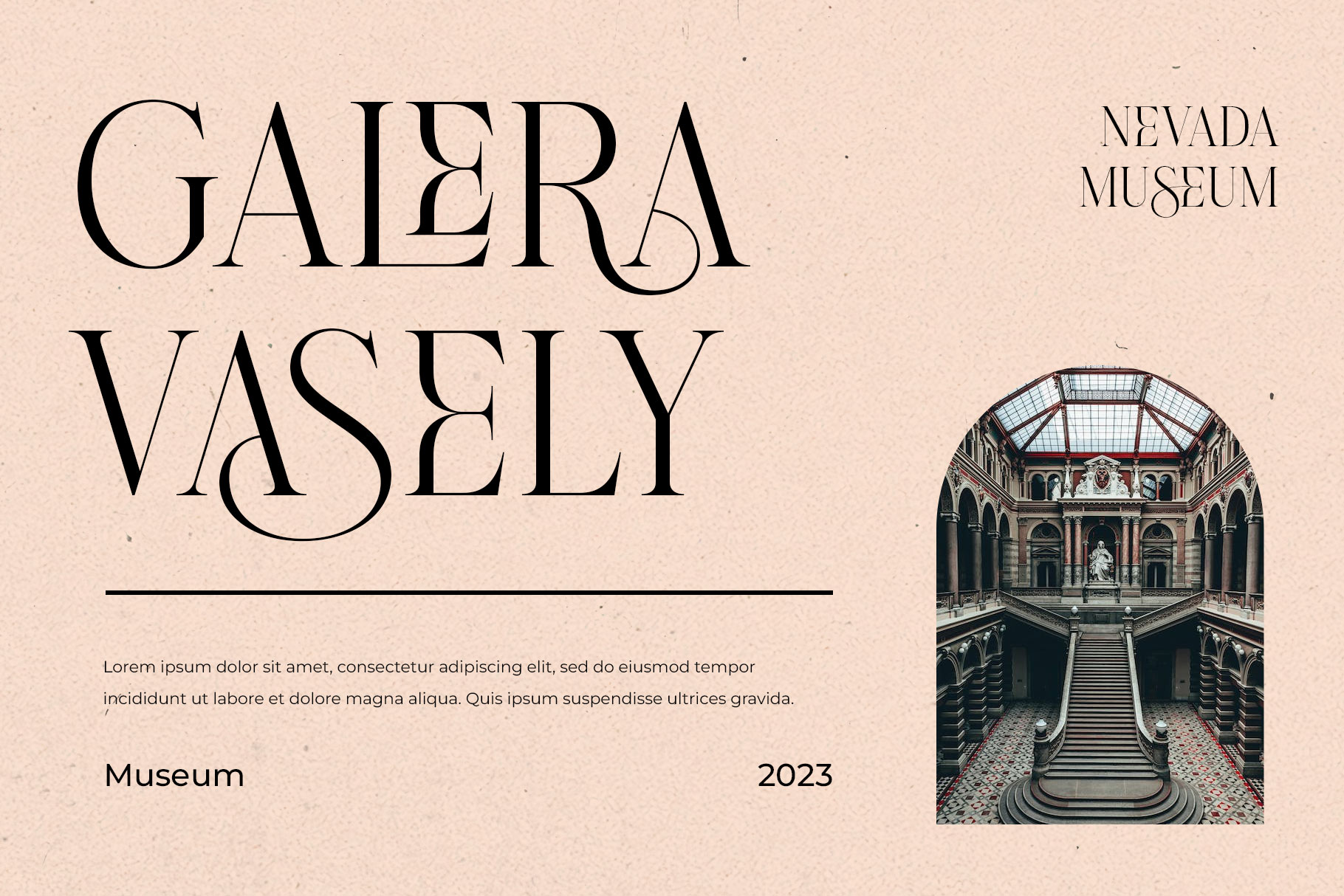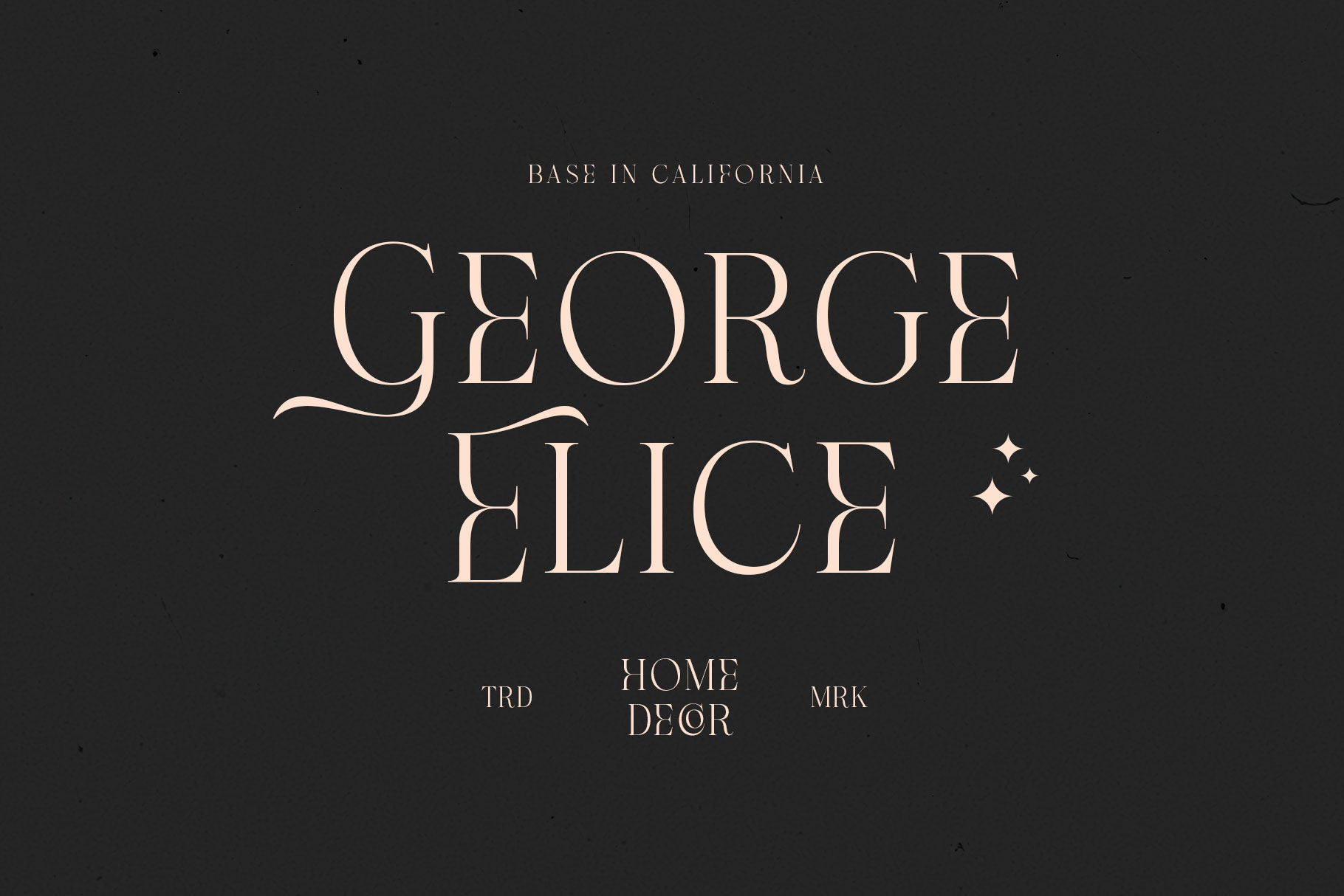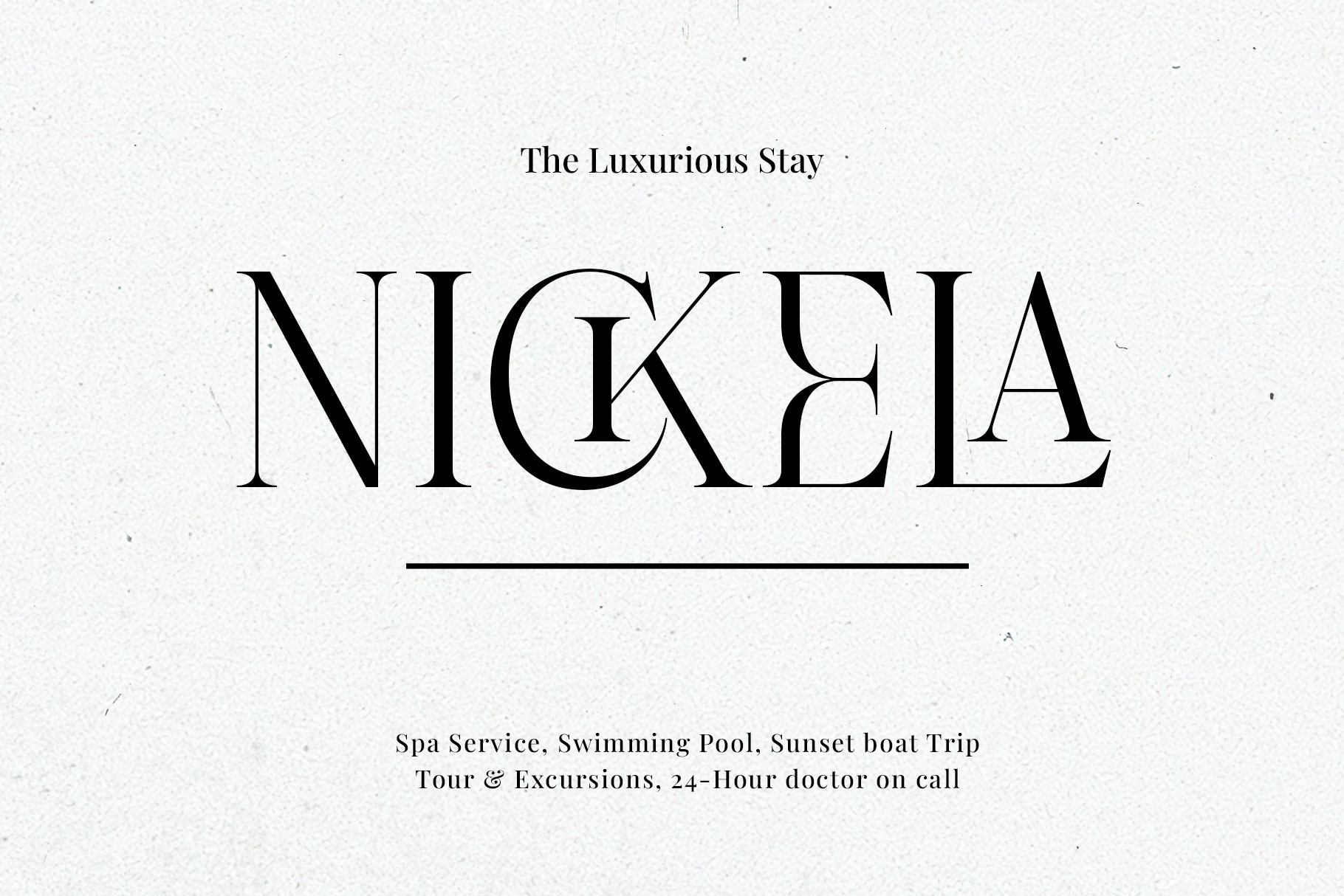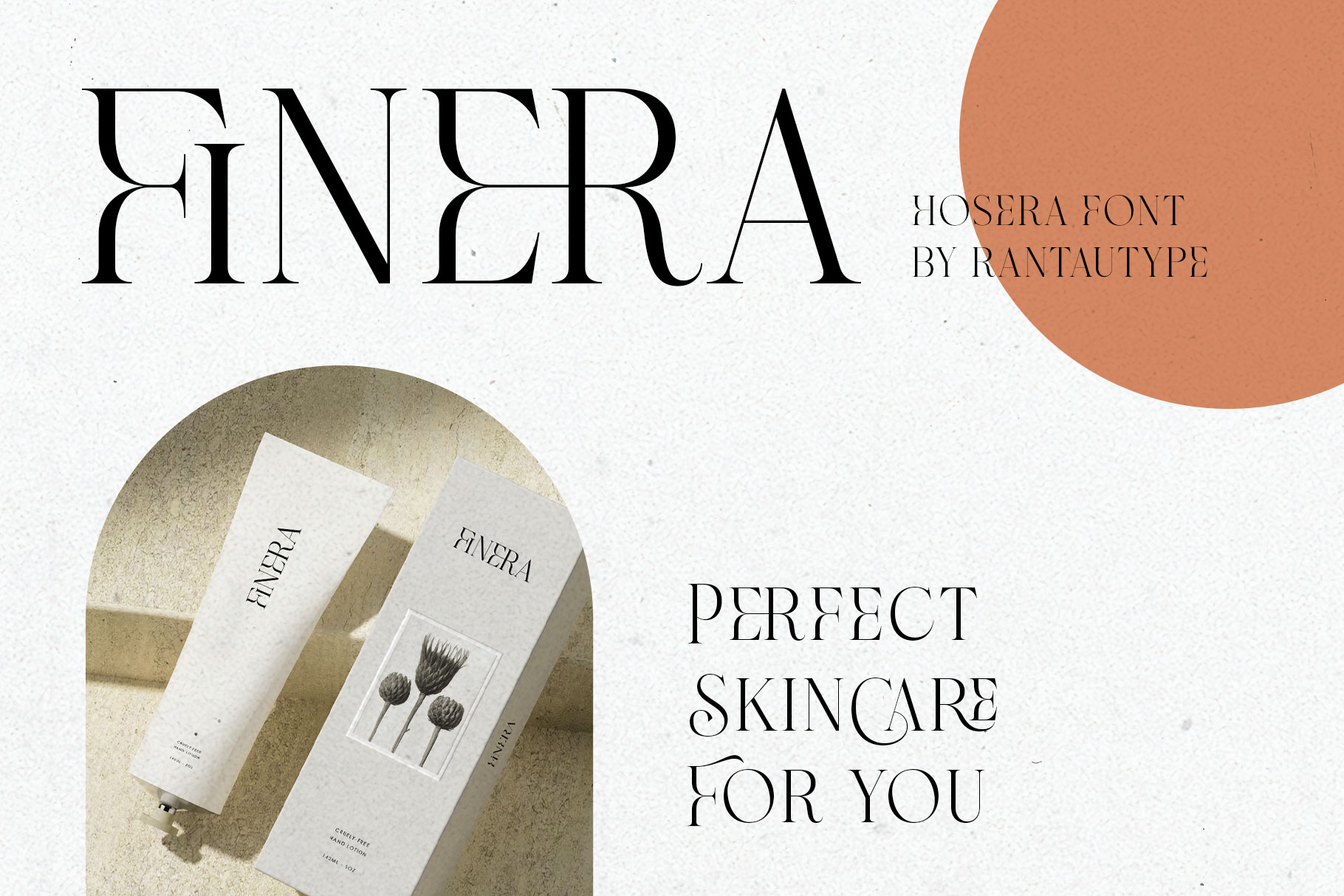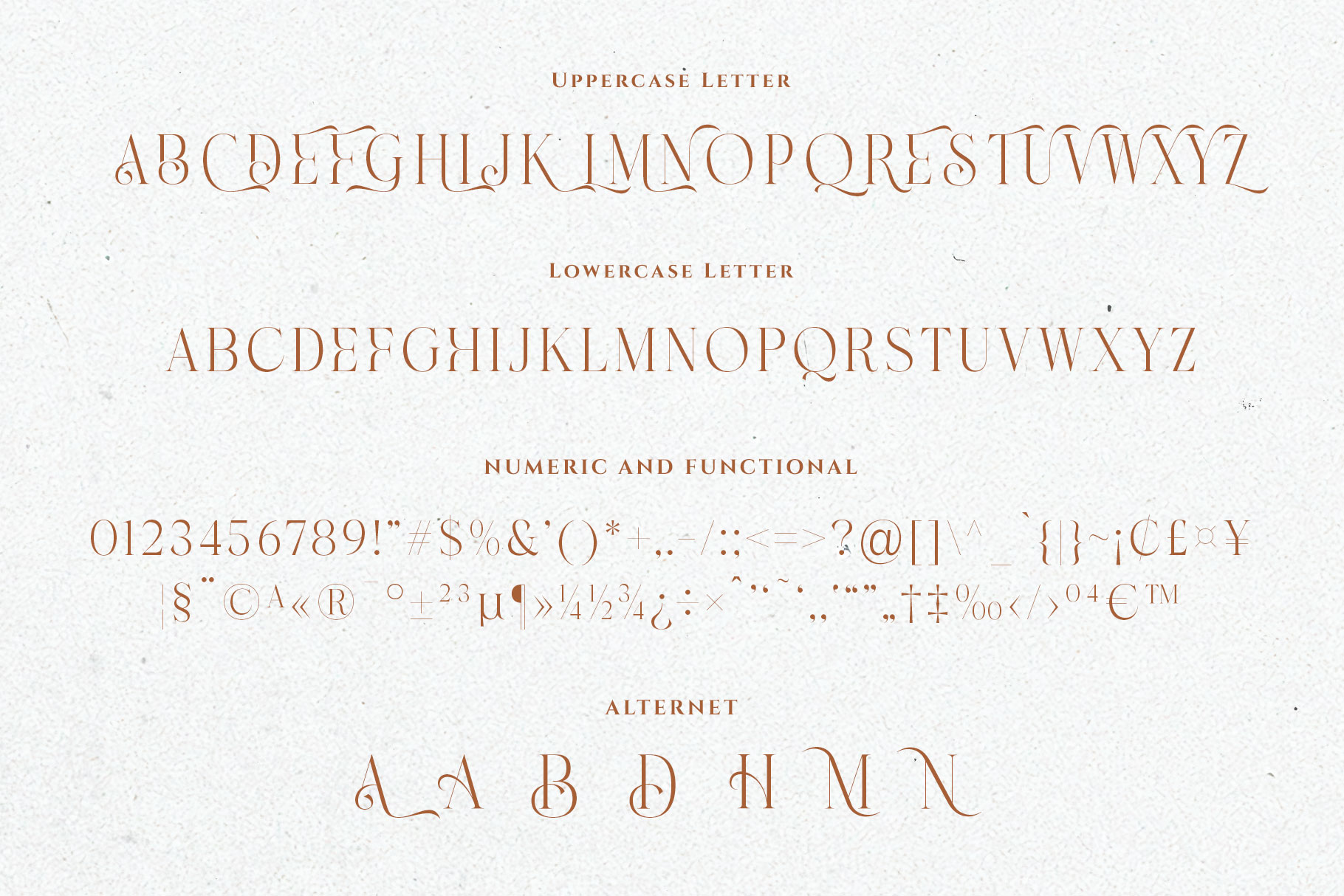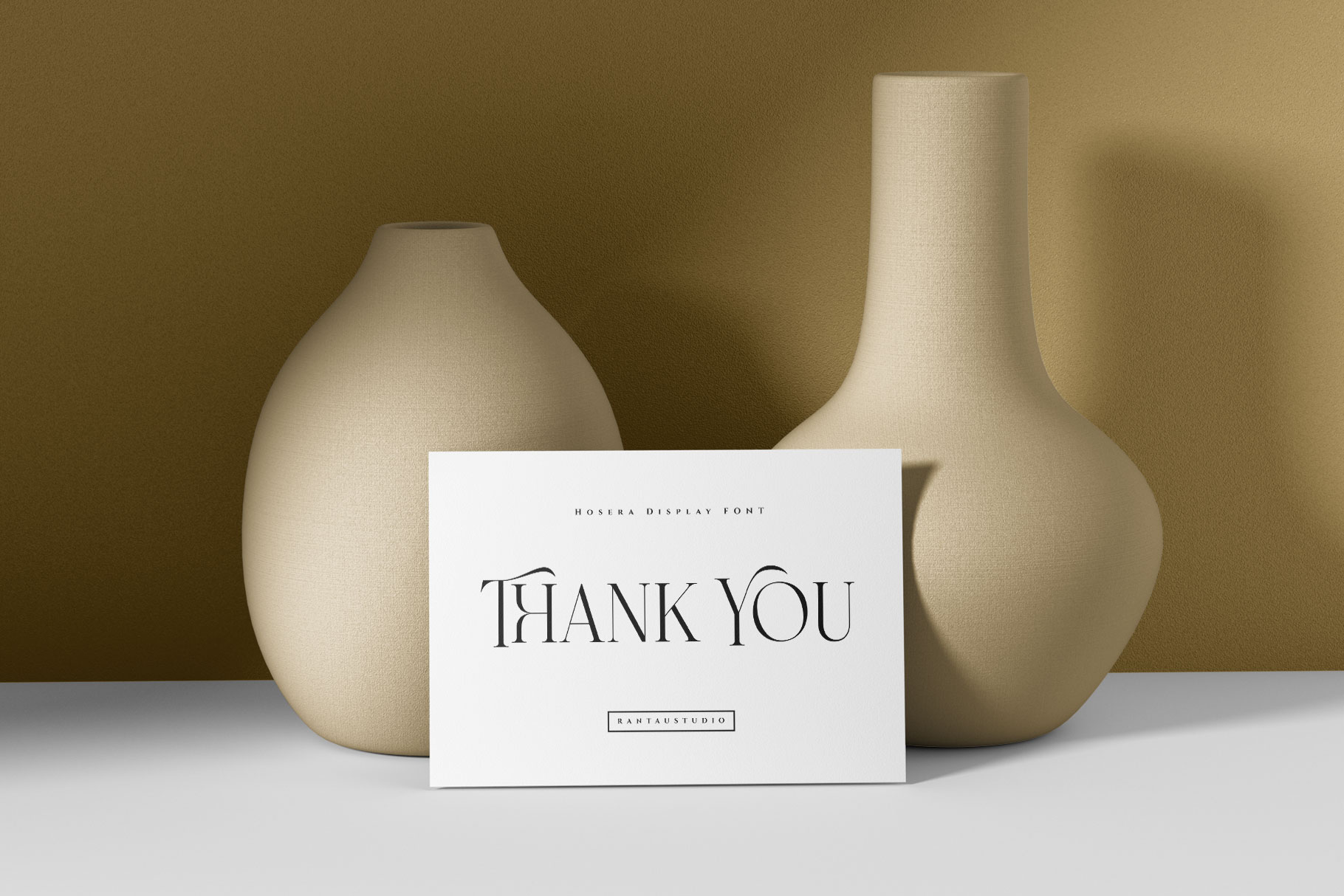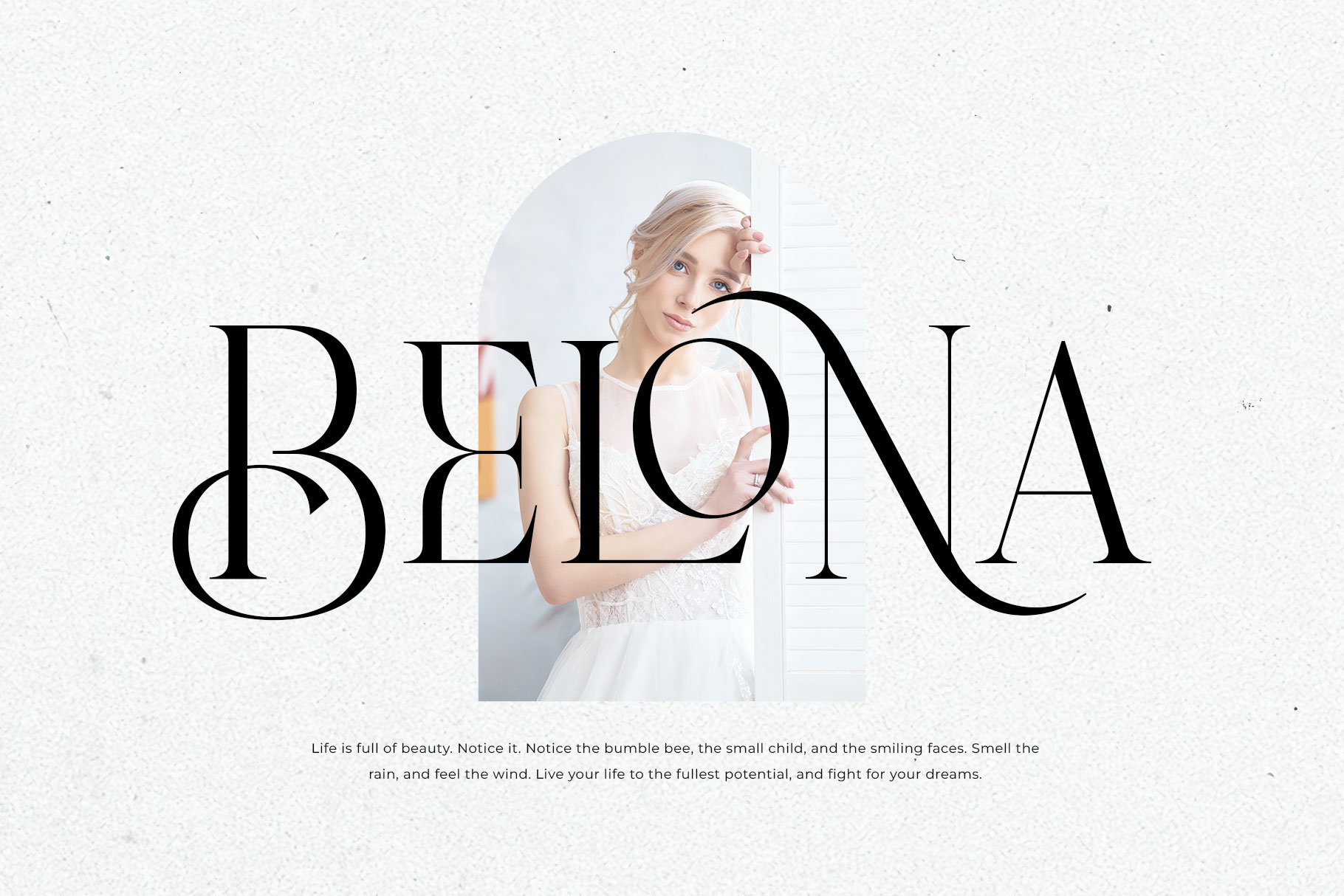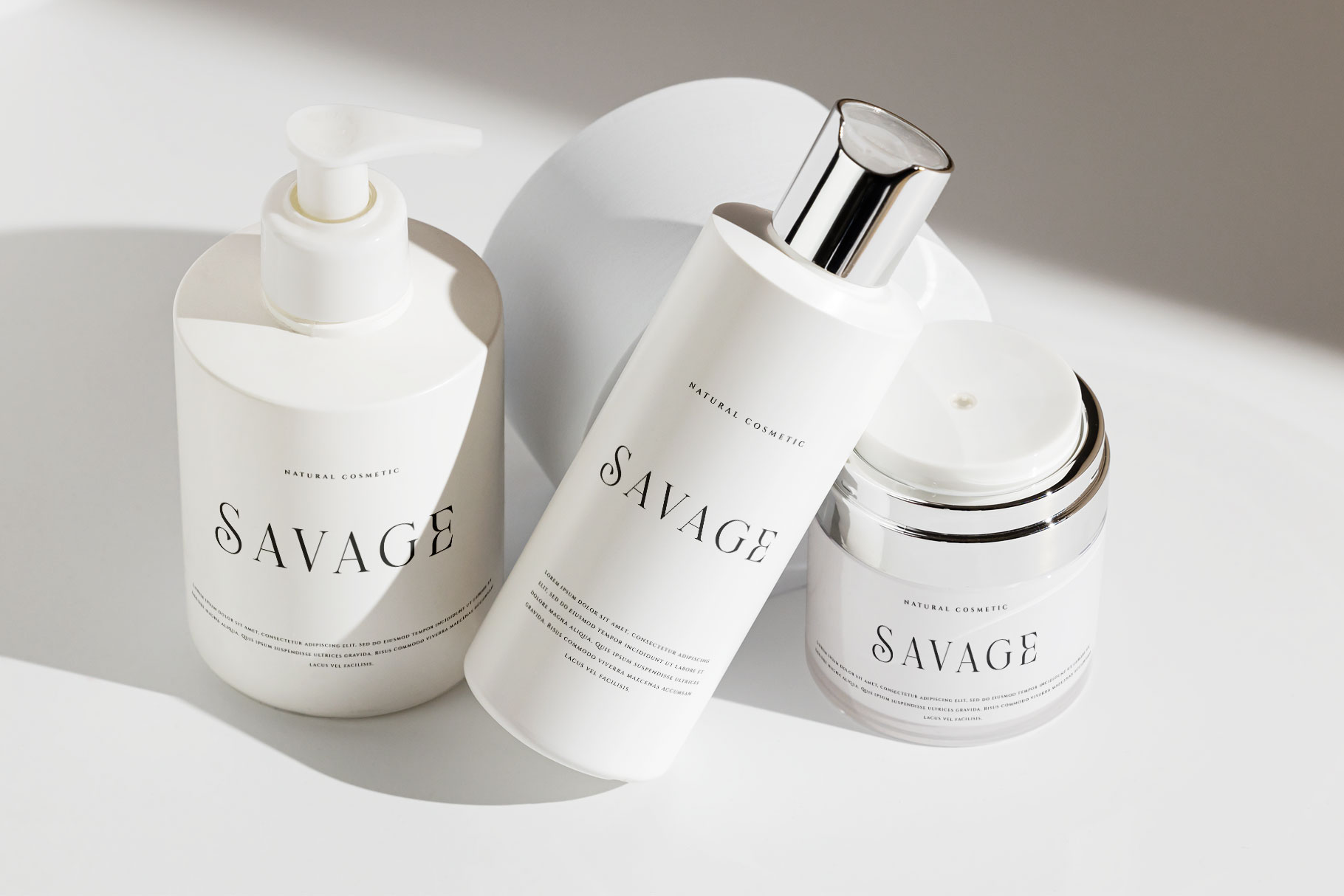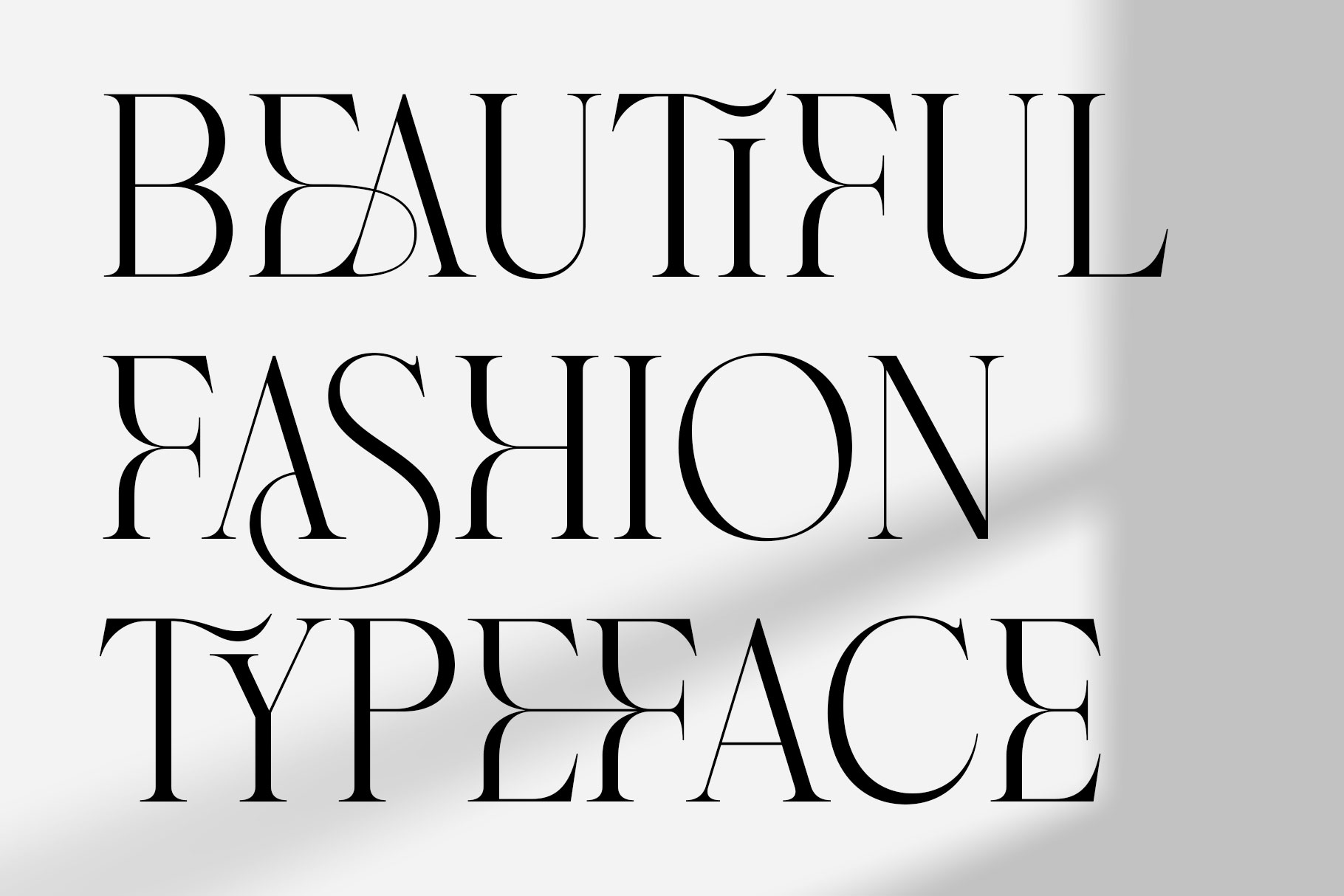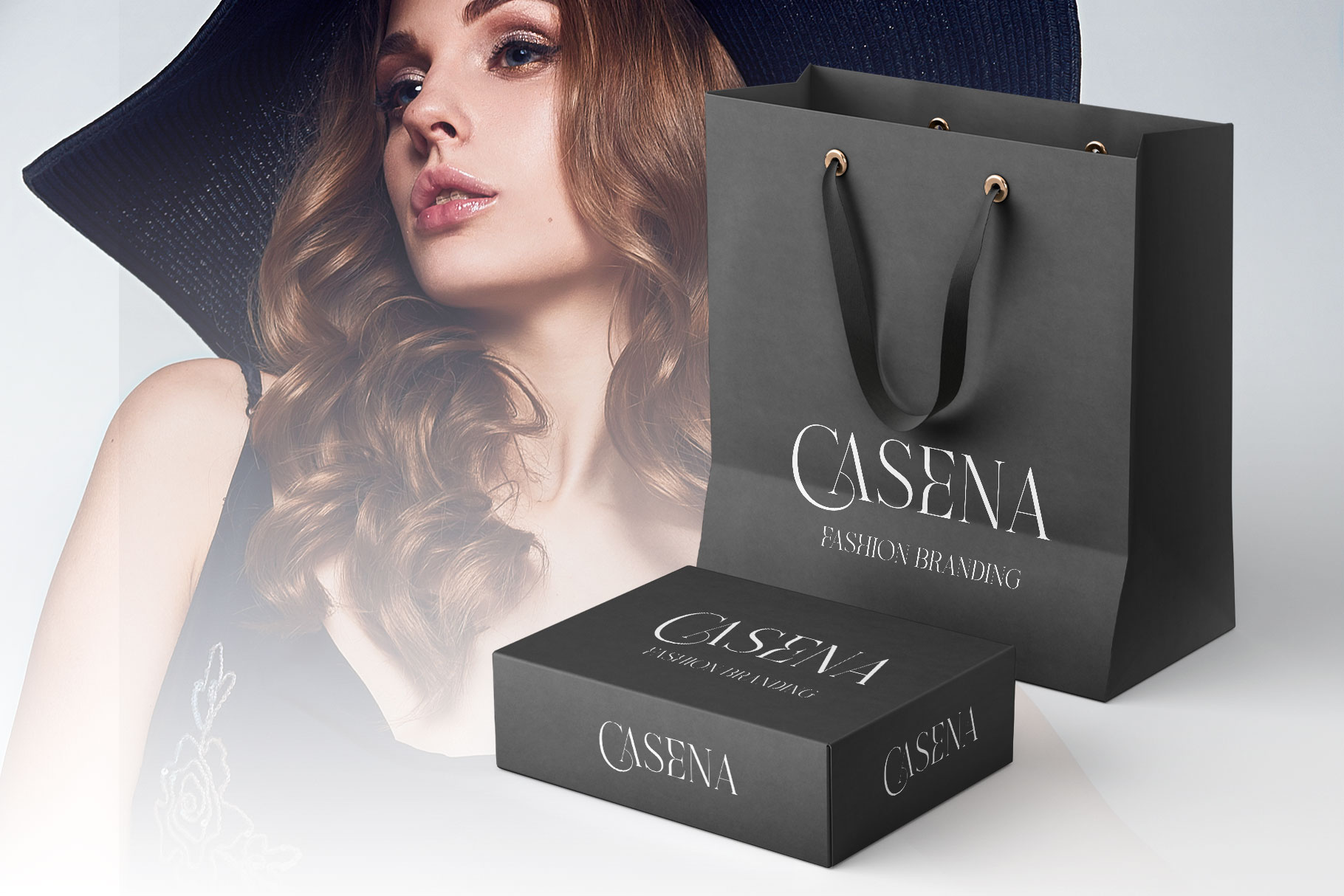
Hosera A Elegant Serif Font
Proudly present a elegant ligature serif font “Hosera”, by rantautype.
Hosera – a elegant display serif with Sophisticated shape. We love how tall it look elegant and professional. We keep this font looks fashionable, elegant, luxury, premium, modern, catchy and easy to use. Hosera come with alternate, ligature and multinggual support.
Hosera is beautiful choice for any creative endeavor to make perfectly suitable for creating elegant, chic, lifestyle design such as logos, title, cover, branding, display and magazine, and more. Now you can choice Hosera to make your project stand out!